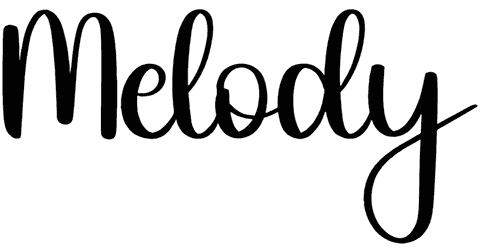
Melody Font
Say hello to Melody, a cute handwritten font that exudes freshness and charm. Its exciting natural influence can attract a lot of attention to your design. This font is functional and easily transfers your message. It is an excellent option for greeting cards, book covers, product packaging, digital planners, and YouTube vlogs.